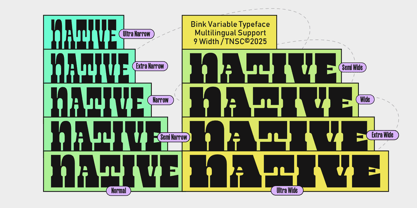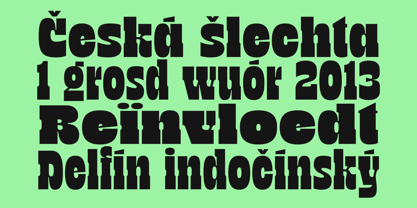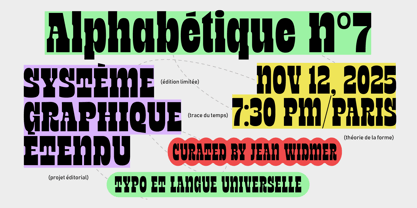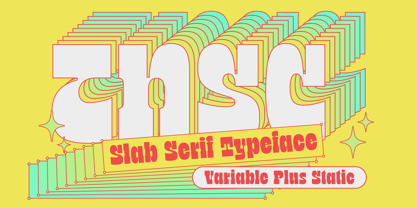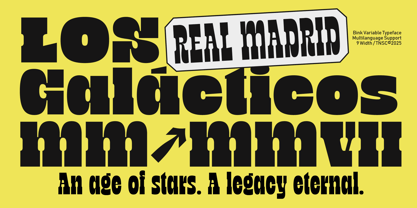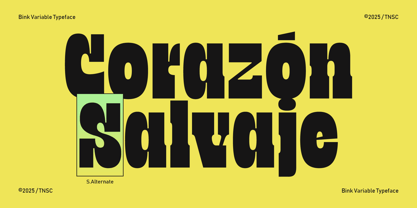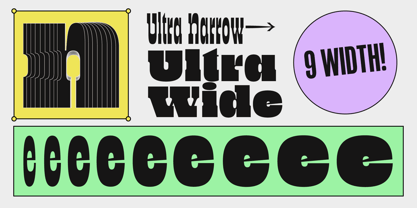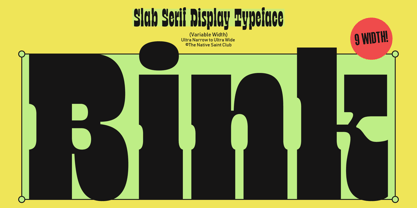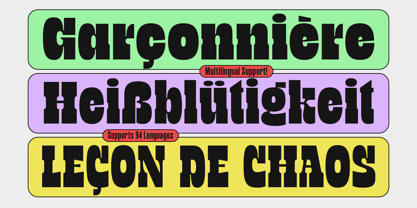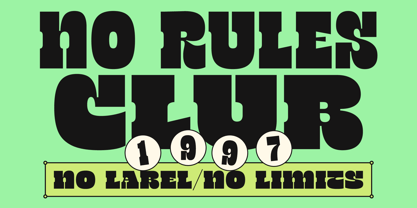
TNSC Bink
by The Native Saint Club
TNSC Bink is a slab serif display font with bold and simple letterforms. The font family includes Ultra Narrow, Extra Narrow, Semi Narrow, Normal, Semi Wide, Wide, Extra Wide and Ultra Wide, allowing it to fit different layout needs while keeping a consistent structure. Suitable for titles, posters, branding, and other design work that requires a clear and steady display style.
Designers: Bagas Ferdiansah, Septianto Nugroho
Foundry: The Native Saint Club